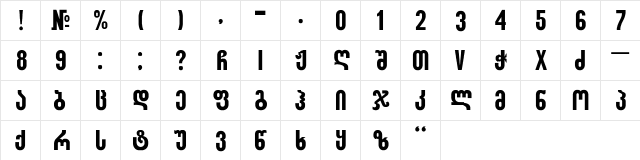
SakarMtavr Regular
Design Context for SakarMtavr Typeface
SakarMtavr offers clean, dependable letterforms without strong stylistic allegiance, making it a practical choice for designers who need flexibility.